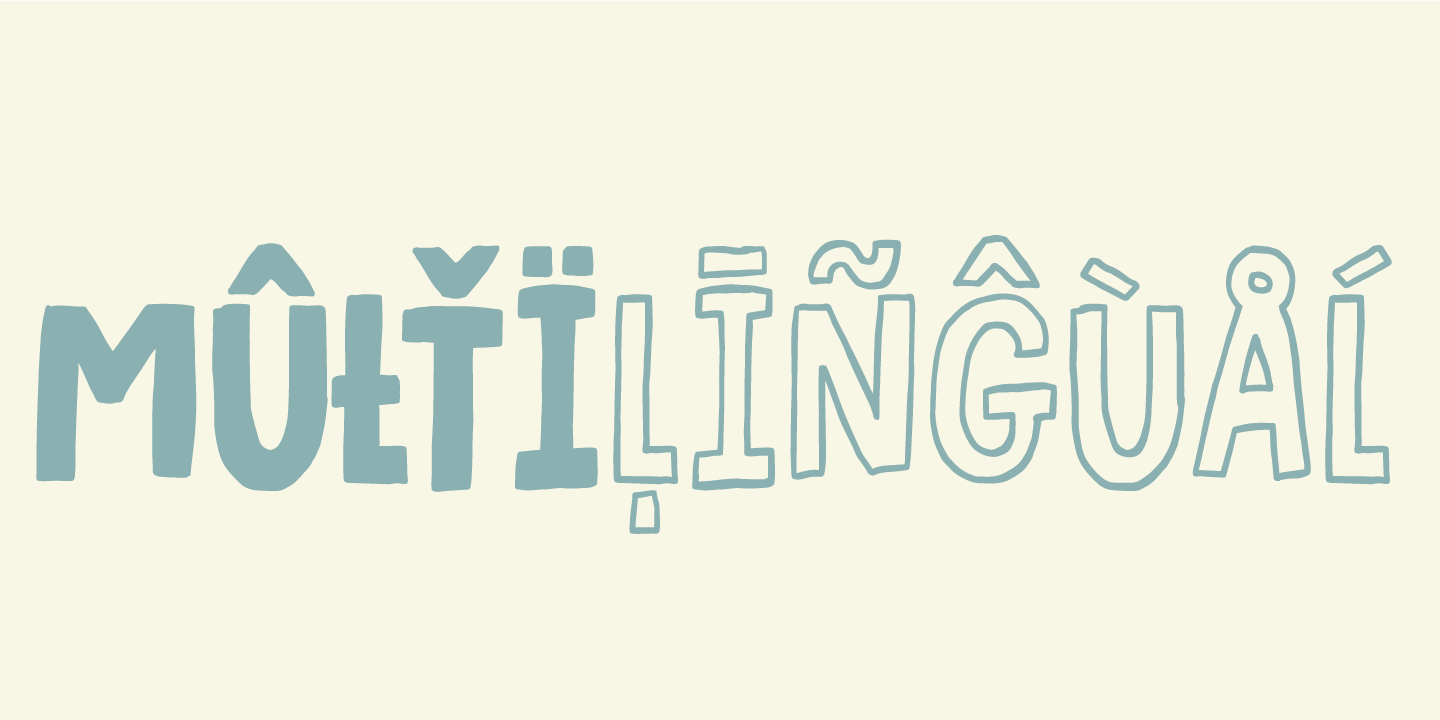
Limited Budget Font is excellent for affordable design applications including discount retail branding, budget-friendly marketing campaigns, thrift store signage, startup company materials, cost-effective promotional graphics, community organization posters, student project designs, and economical business communications. This practical typeface brings accessible functionality and honest appeal to projects that prioritize value and affordability.
What makes Limited Budget Font exciting is its straightforward representation of practical efficiency and honest value through letterforms that communicate reliability without pretension. The font features clean, no-nonsense characteristics with functional proportions that ensure excellent readability while maintaining approachable personality. Its economical character appeals to audiences who appreciate smart spending, practical solutions, and authentic value propositions.
The Limited Budget Font family includes various practical styles such as Regular, Bold, Light, and condensed variations that enhance the value-focused aesthetic. These efficient options provide comprehensive design solutions for creating authentic budget-conscious brand identities that celebrate practical wisdom and smart resource management.
This specialized value typeface brings genuine affordability authenticity to contemporary design projects. Budget retailers and cost-conscious businesses choose Limited Budget Font Free Download for its exceptional ability to communicate value and practical efficiency. The font's budget-friendly inspiration makes it perfect for discount stores, startup companies, and community organizations that want to convey honest affordability and practical solutions. Its straightforward character ensures memorable brand recognition while maintaining the authentic aesthetic that defines exceptional value-focused design work.